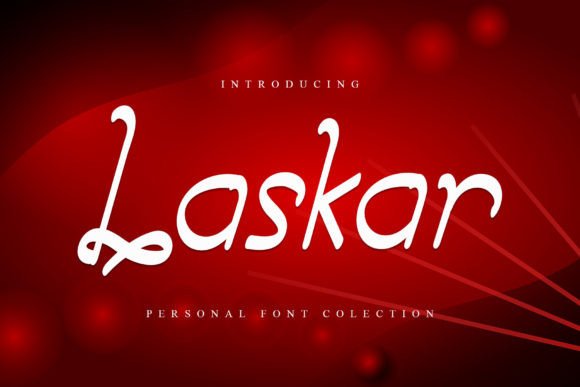
Prepare to be captivated by Laskar Font, a script font that exudes a sense of playful charm. Designed with meticulous care by BabyArt, this font is an enchanting blend of elegance and modern flair that will add a touch of sophistication to your creative projects. Whether you're designing invitation cards, greeting cards, party events, billboards, logos, business cards, or embarking on any design journey that calls for a handwritten touch, Laskar Font is your perfect companion.
Unleash your creativity and let Laskar Font transform your designs into masterpieces. Its graceful strokes will effortlessly capture the attention of your audience, leaving a lasting impression that lingers in their minds. From the intricate curves of its characters to the whimsical flow of its lines, Laskar Font is a feast for the eyes, inviting your viewers on a captivating journey through the world of design.
Immerse yourself in the boundless possibilities that Laskar Font offers. Its versatility knows no bounds, effortlessly adapting to a myriad of projects. Whether you're a seasoned designer seeking a touch of elegance or a beginner eager to make a statement, this font will seamlessly blend with your vision, elevating your work to new heights.
Don't settle for ordinary fonts that blend into the background. Choose Laskar Font, a font that commands attention and ignites the imagination. Its unique style will set your designs apart, leaving an unforgettable mark on your audience. Embrace the power of Laskar Font and let your creativity soar.
With Laskar Font, you'll discover a world of design possibilities that were previously hidden from view. Its captivating charm will unlock your creative potential, inspiring you to produce stunning designs that captivate and enchant. Step into the realm of extraordinary design and let Laskar Font guide you on an artistic adventure like no other.